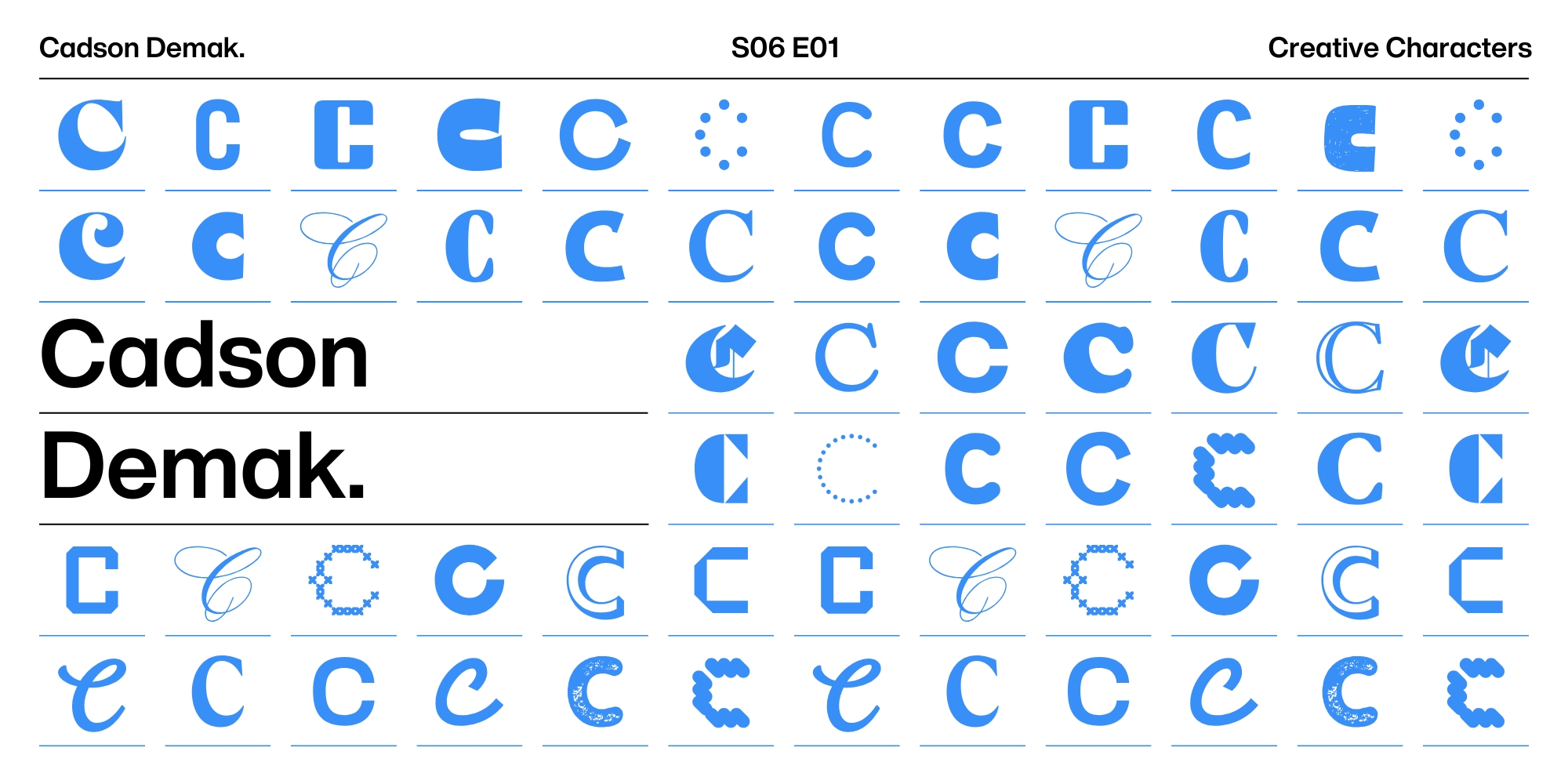
Creative Characters S6 E1: Shaping Thai type and design with Cadson Demak.
Anuthin Wongsunkakon.
This week, we travel to Thailand to hear the story behind Cadson Demak, the Bangkok-based type foundry and design studio that has been shaping the landscape of Thai typography and design for 25 years.
Host Dan Rhatigan chats with Founding Partner Anuthin Wongsunkakon and Senior Type Designer Nalat Jaturapattarapong about how their foundry and studio have influenced Thai type culture, moving from a time when fonts were undervalued to building a thriving industry.
They discuss the complexities of the Thai script, the evolution of the design industry in Thailand, and their pivotal role in educating designers and creating infrastructure for the industry.